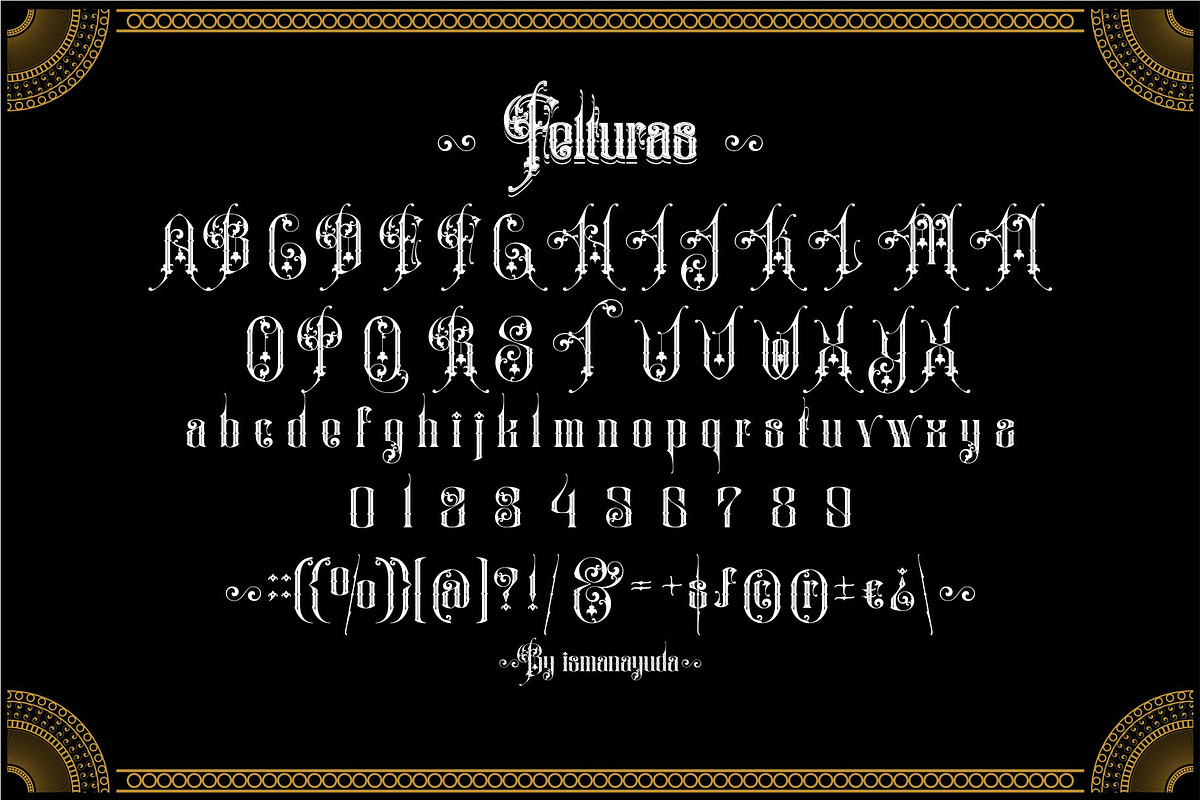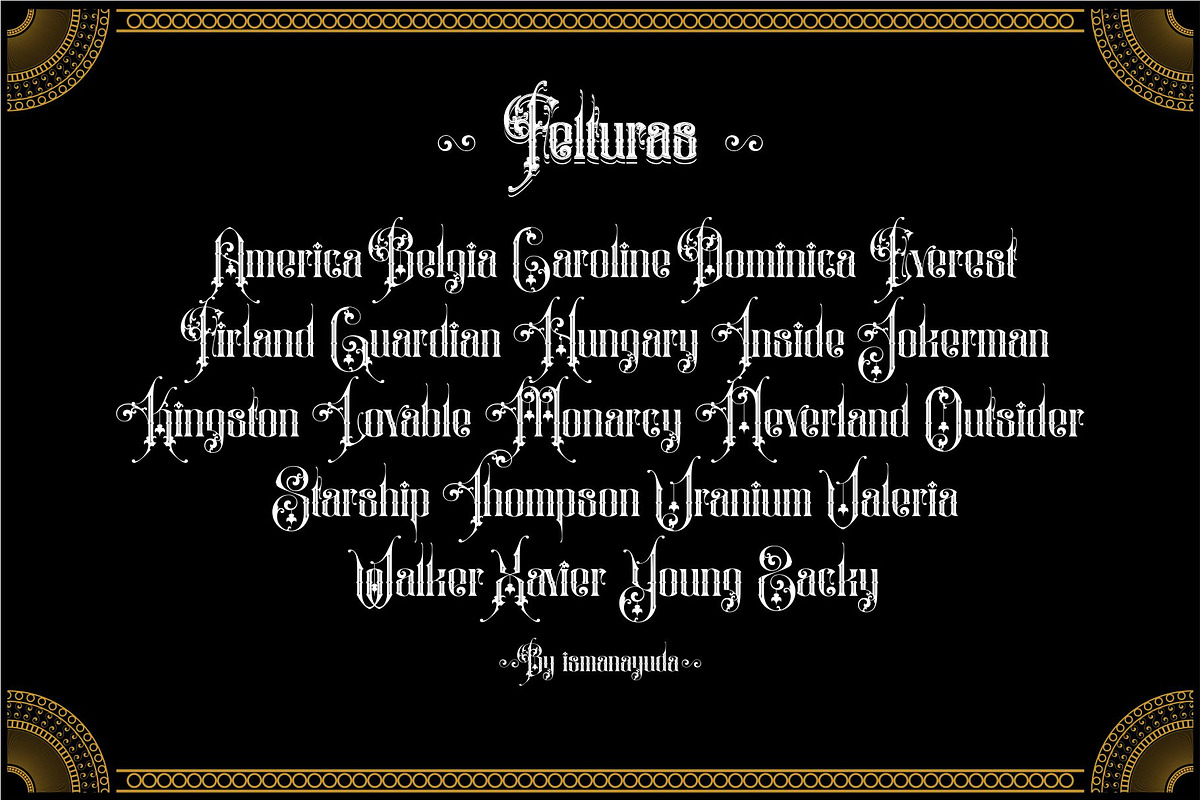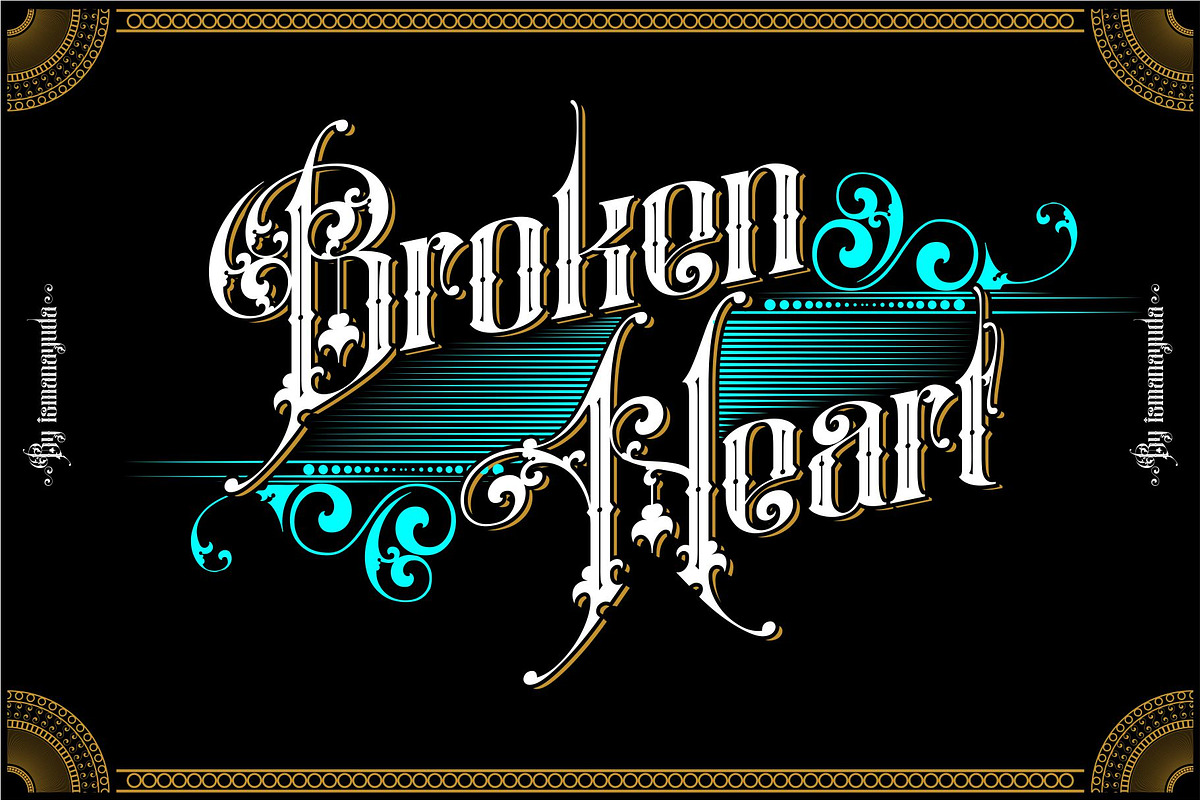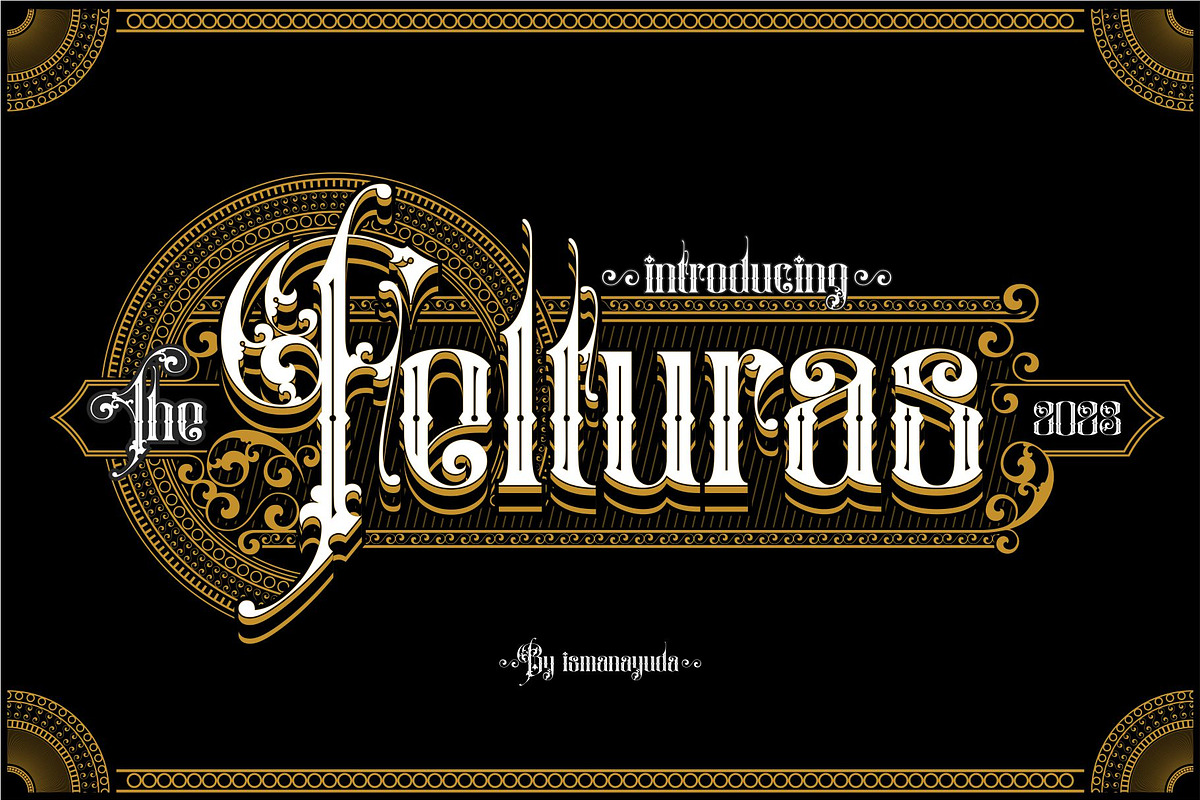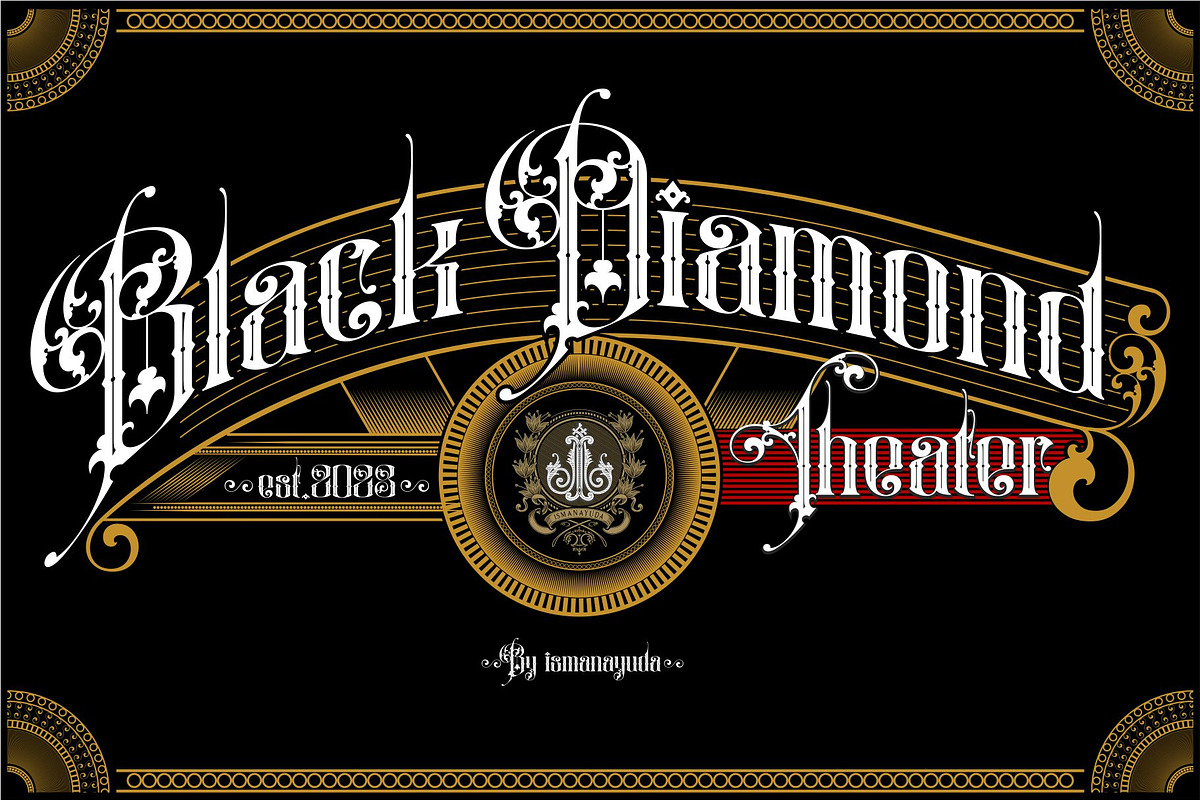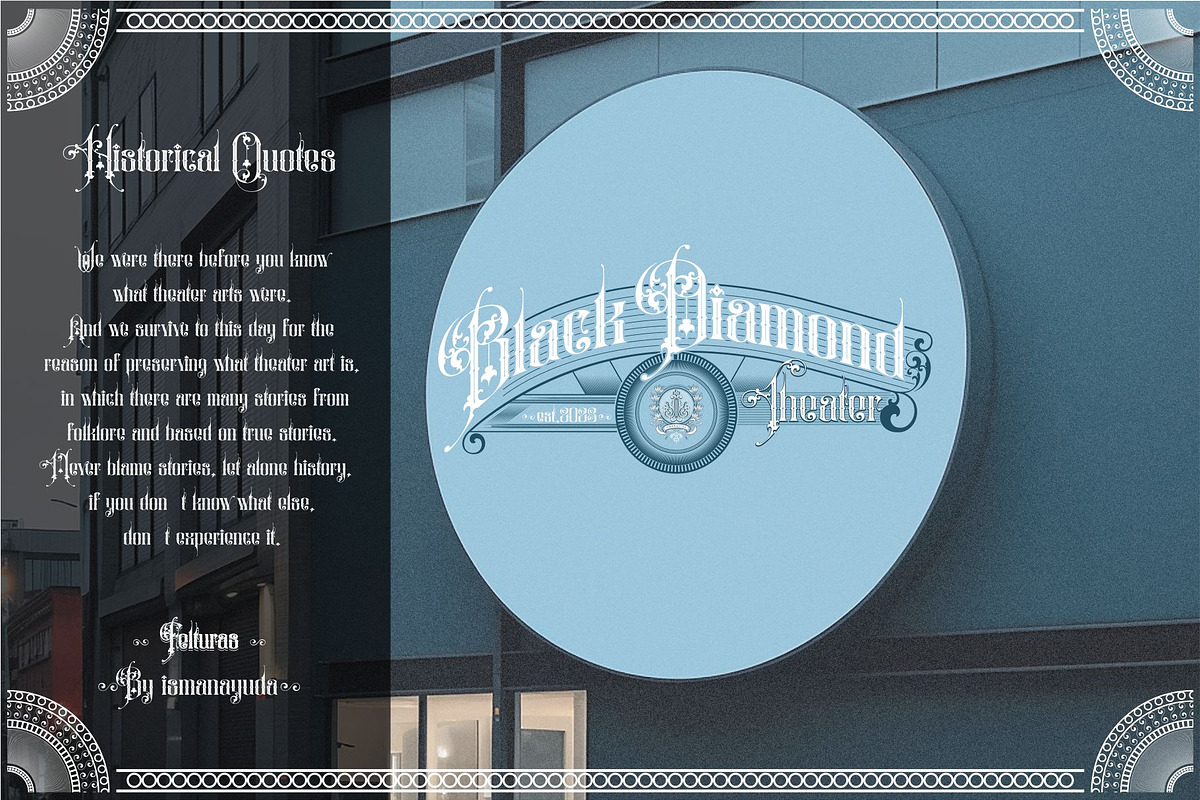
FELTURAS
Hello lovers of masterpieces of art, now we have created a new font that is unique and has a Victorian style.
This font is suitable to meet your needs which include studio tattoos and mock ups for clothes as well as mock ups for castle style shops.